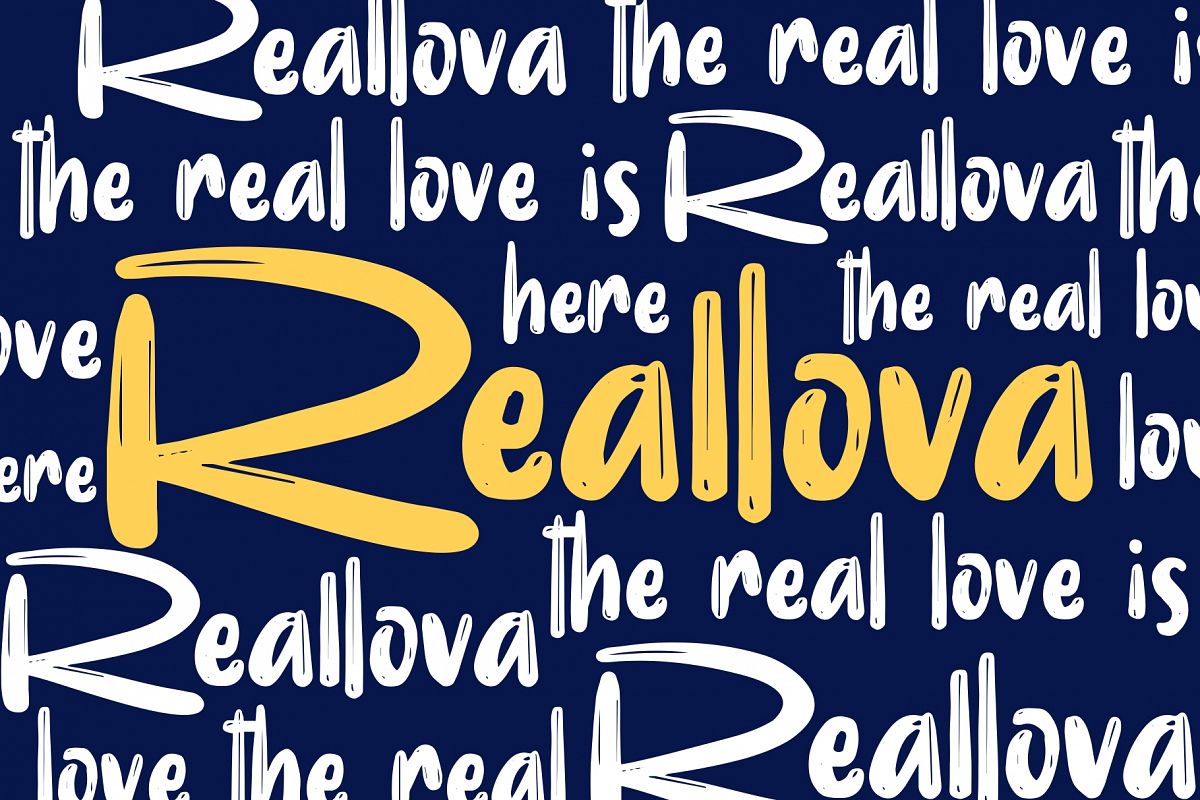
Realova
Reallova
That's REALOVA
Come to The name Realova comes and comes to give true love. Love your great work. With a touch font display, Realova provides a bold touch, fun and a little with a brush effect that will add a natural love for your design. This font is very suitable to be used as a book title, typography design, poster, quote, shirt design, logo type, template, banner, flyer, headline title, and many more.
• Natural texture